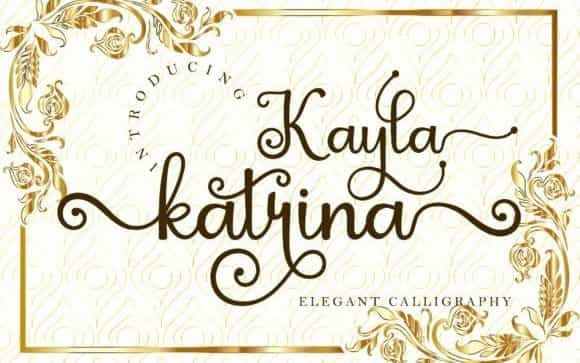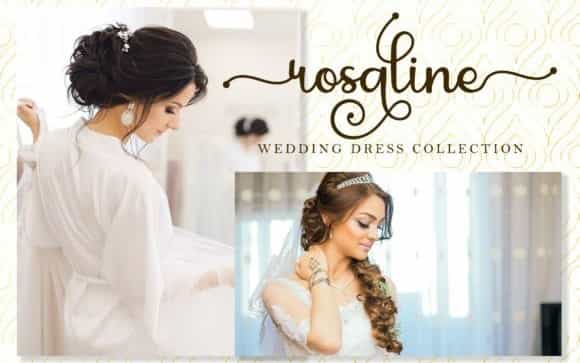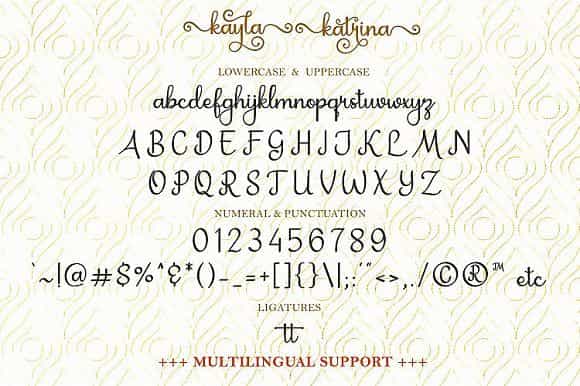
Discover Kayla Katrina Calligraphy Font, part of the Commercial Calligraphy collection—a versatile and unique font perfect for adding a personal touch to your projects. Download it for free and enjoy crafting designs with style, from invitations to social media posts. This font is available exclusively for personal use, giving you the freedom to create without limits. Unlock your creativity with Kayla Katrina Calligraphy Font today!